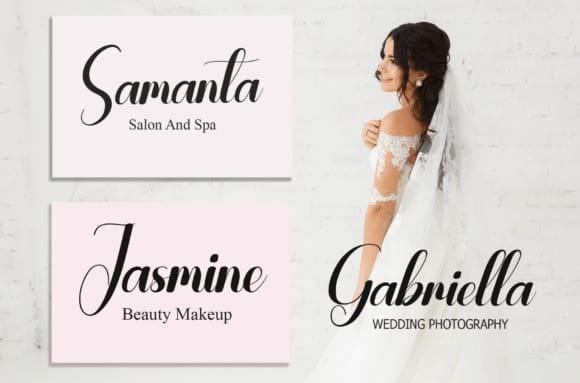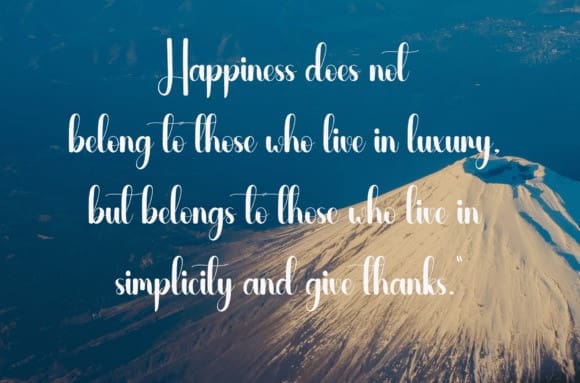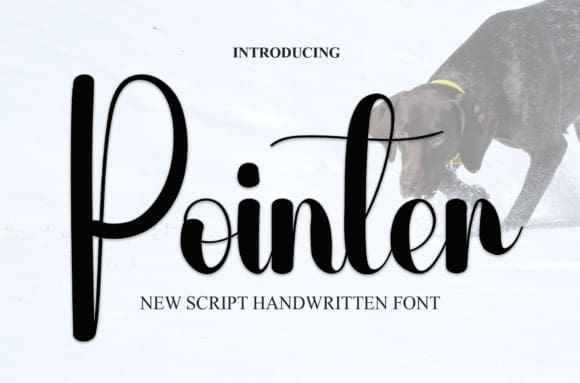
Pointer Script Font
Pointer Script Font is a sweet and friendly handwritten font. Fresh and neat, this font is ideal for writing wedding invitations, cards, or any other design that might need a fun touch!